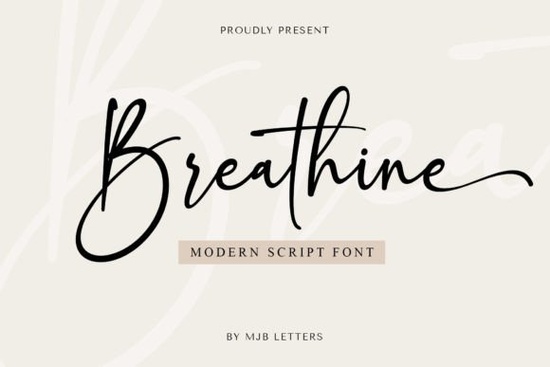
If you've been looking for a script font that feels elegant without being over the top, the Breathine Font deserves your attention. It's a calligraphy-style typeface with flowing, graceful strokes the kind that work well for wedding invitations, social media graphics, logos, and DIY craft projects. Designers, small business owners, and hobbyists alike reach for fonts like this when they want a polished handwritten look without the hassle of actual hand-lettering.
What makes Breathine different from other script fonts?
With so many script fonts out there, it's fair to ask what sets this one apart. The Breathine typeface stands out because of its carefully balanced letterforms. Each character connects to the next with natural, sweeping strokes that look like real hand-lettering. Some decorative scripts sacrifice readability for style this one doesn't. It stays legible at smaller sizes, which matters a lot when you're designing printed items like business cards, product tags, or packaging labels.
The font includes:
- Uppercase and lowercase letters with smooth, flowing curves
- Numbers and punctuation for complete design flexibility
- Alternate characters and ligatures that add variety
- Multilingual support for broader project use
These features make it a practical choice for anyone who works with elegant script fonts on a regular basis.
What can you actually use this font for?
This is where calligraphy-style fonts really prove their value they're adaptable across many types of projects. Here are some real-world uses:
- Wedding invitations and event stationery flowing scripts are a natural match for formal and semi-formal designs
- Social media content quotes, announcements, and promotional graphics feel more personal with a handwritten style
- Print-on-demand products mugs, tote bags, t-shirts, and posters all benefit from distinctive typography
- Branding and logos especially for boutiques, beauty brands, and lifestyle businesses
- DIY craft projects vinyl decals, scrapbooking, and handmade cards look more polished with a well-designed script
If you sell products online, having a versatile calligraphy font in your toolkit can save you hours of searching for the right typeface each time a new project comes up.
How does it pair with other fonts?
One common question is whether a script font works alongside other typefaces. The short answer: yes, but the pairing matters. Breathine works best alongside clean sans-serif or simple serif fonts. Use the script for headings or accent text, and let a more structured typeface handle the body copy.
What if you want a different style?
Script fonts come in many flavors, and the right one depends on the mood of your project. If you love the flowing elegance of Breathine but want to explore other directions, here are a couple worth comparing:
Testing a few scripts before committing to one for a big project is a smart approach. Small details like how the lowercase "g" connects to the next letter can make a noticeable difference in the finished design.